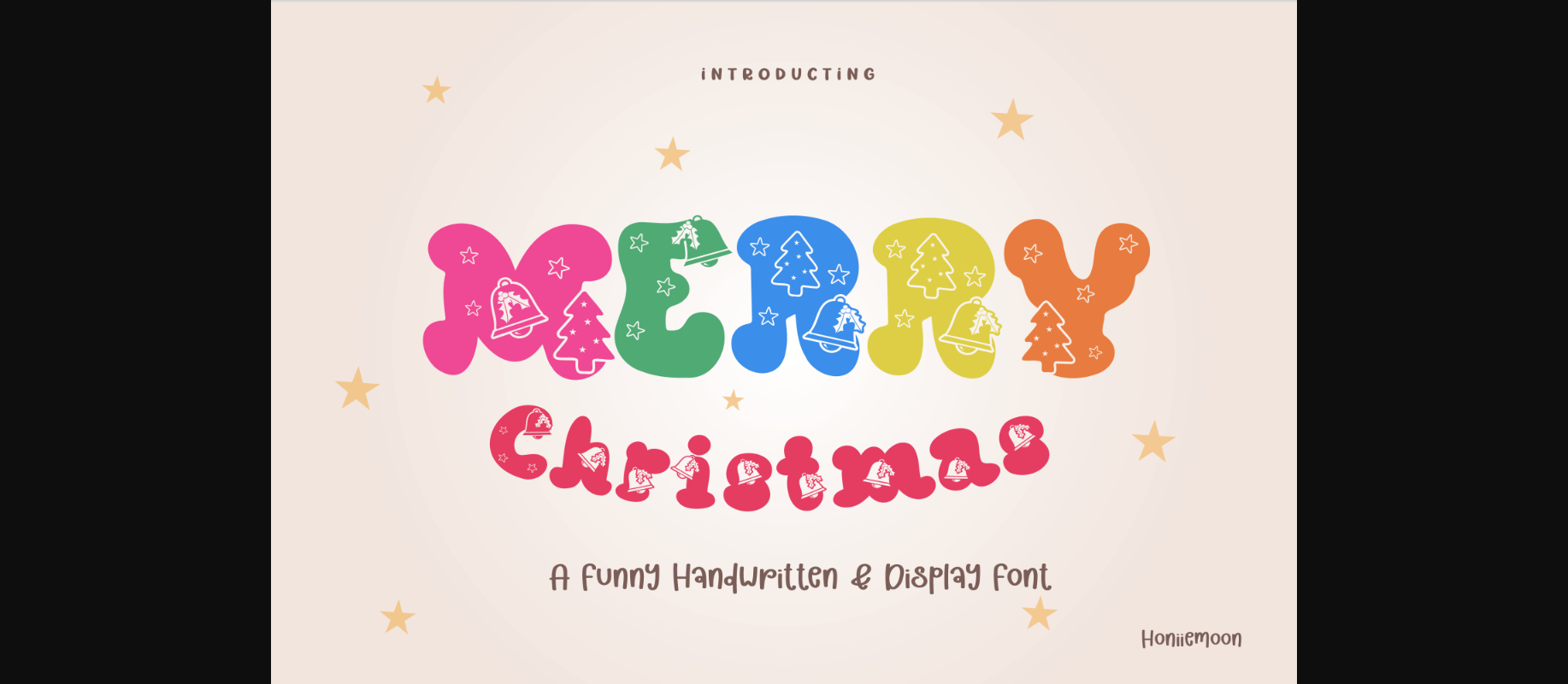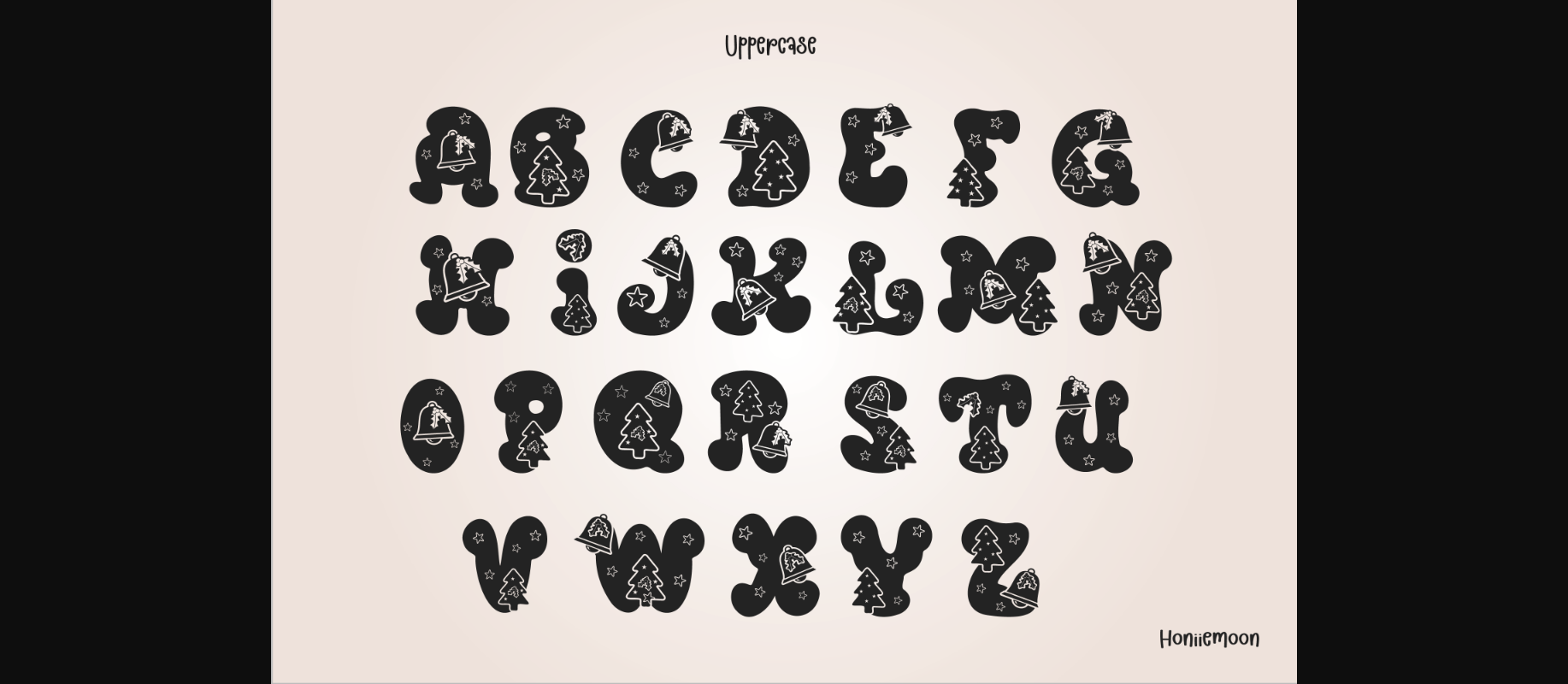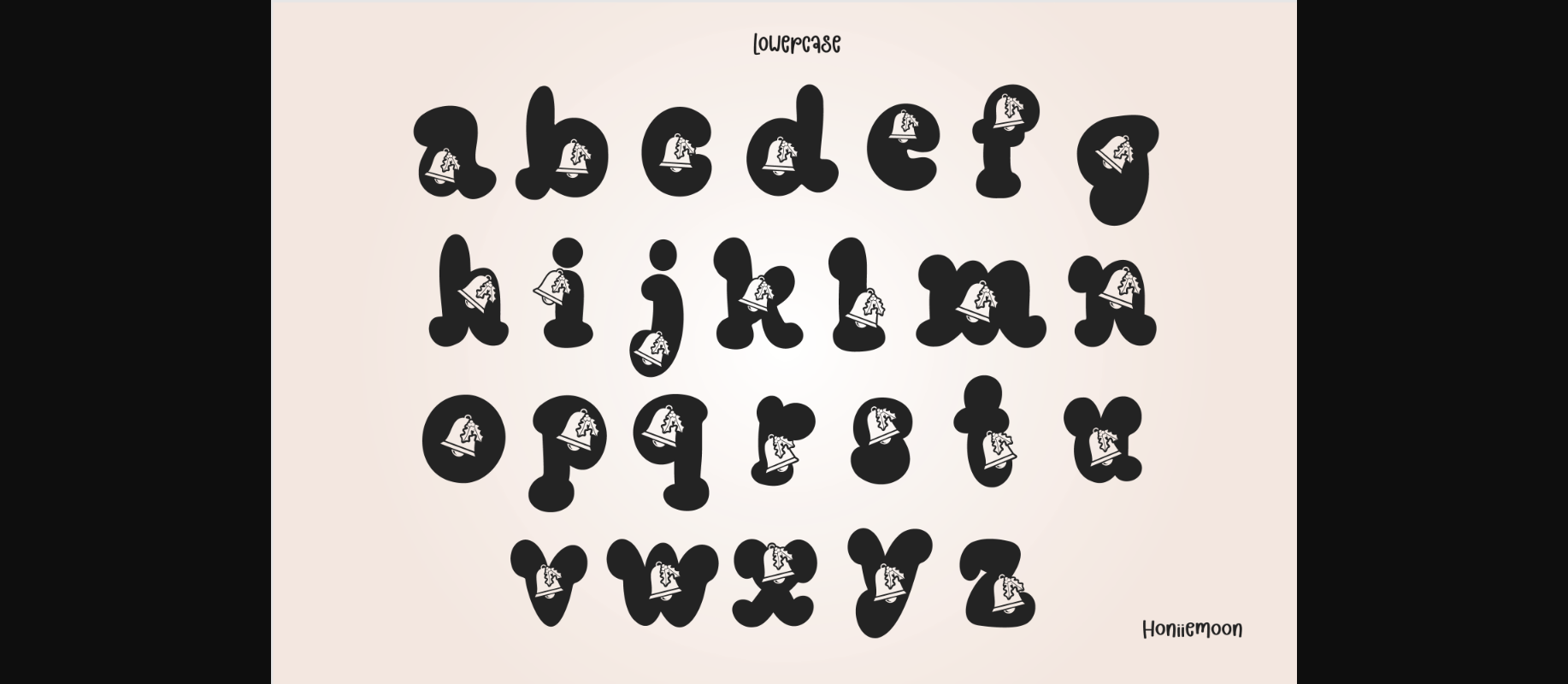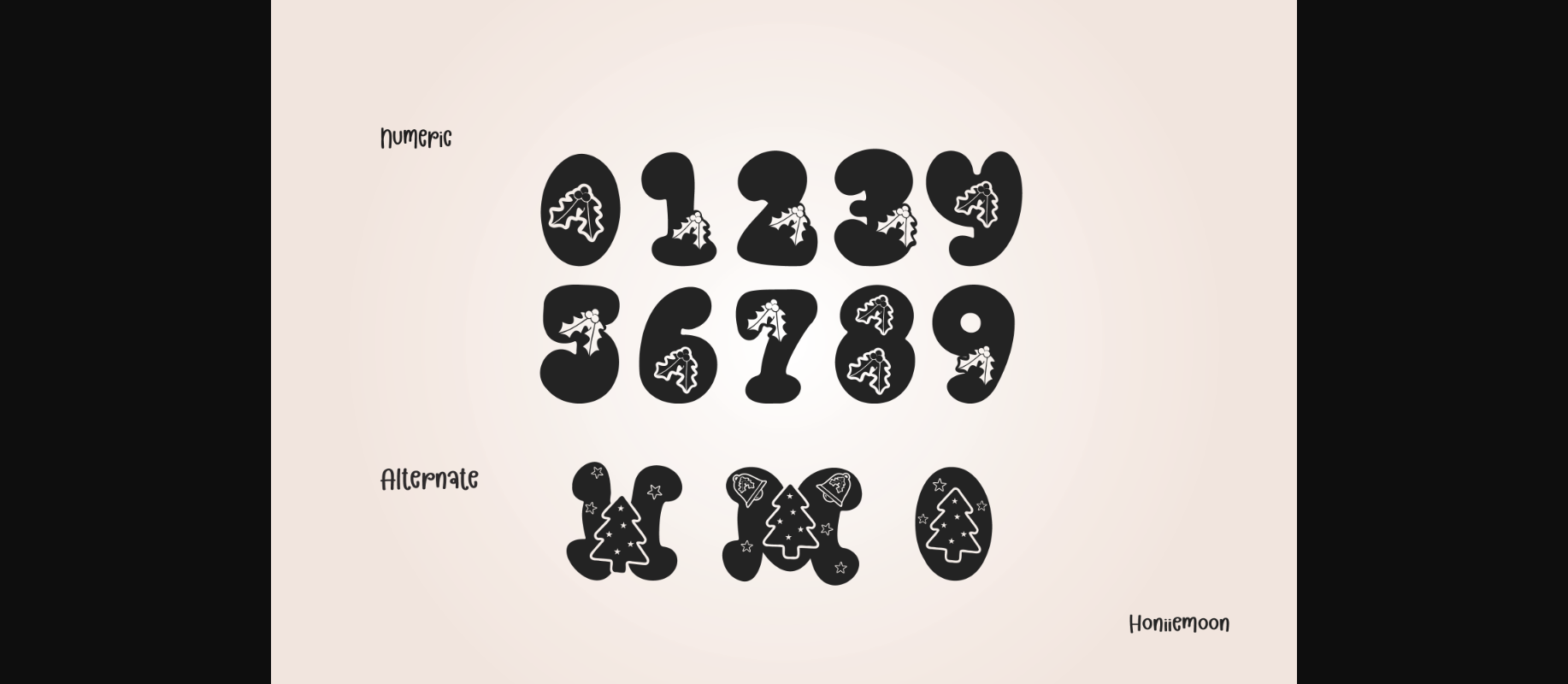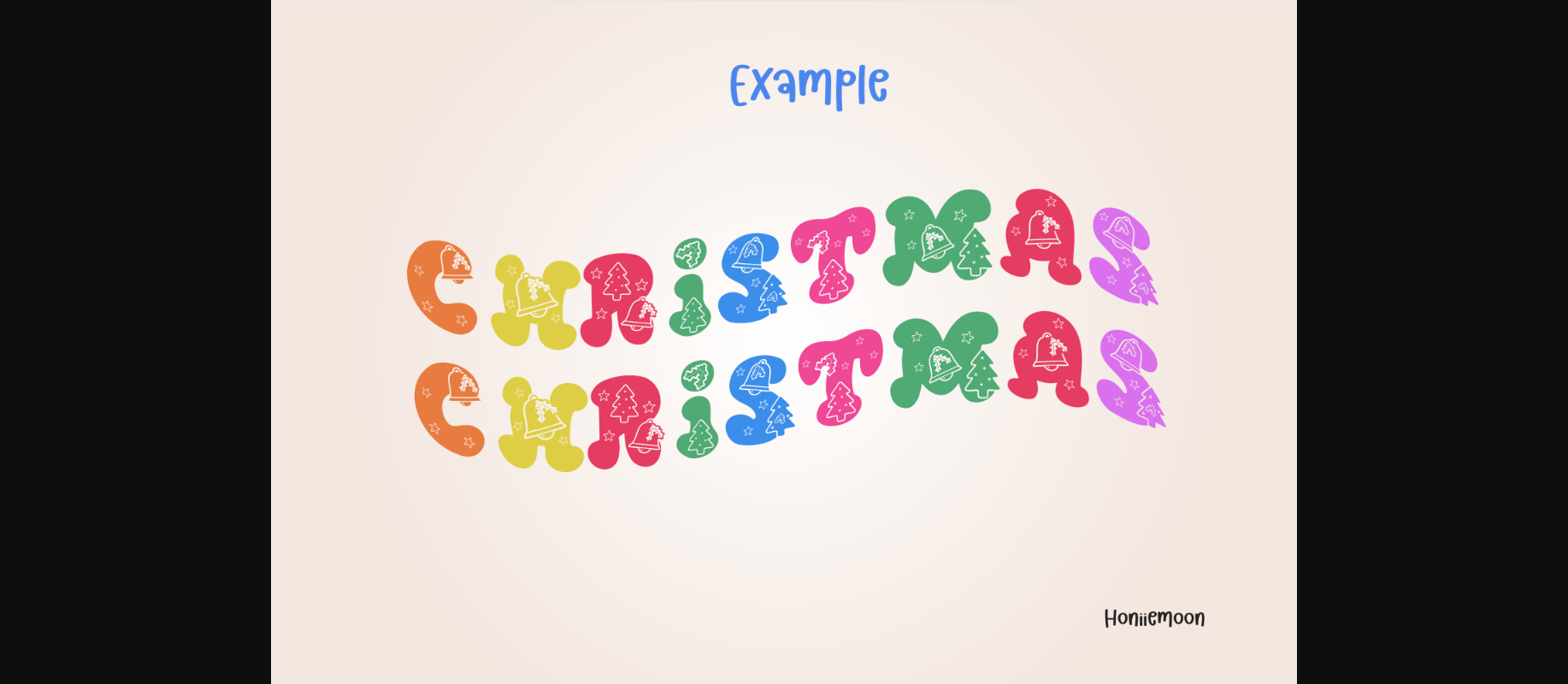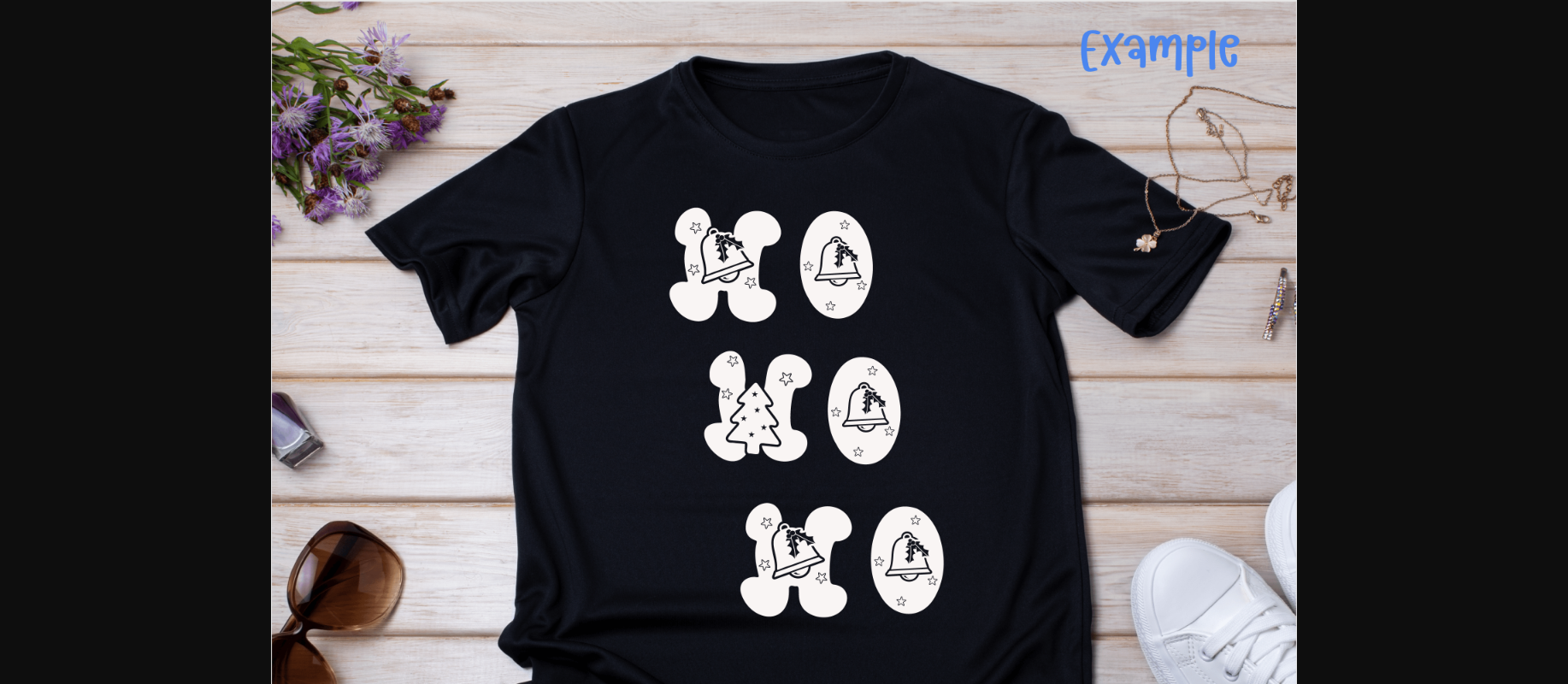
About Merry Christmas Font
Merry Christmas is a cool and fun decorative font. It looks both cute and jolly, and it will enhance each of your designs. The only limit is your imagination. Add this colorful and bold font to each of your creative ideas, and notice how it makes them come alive!